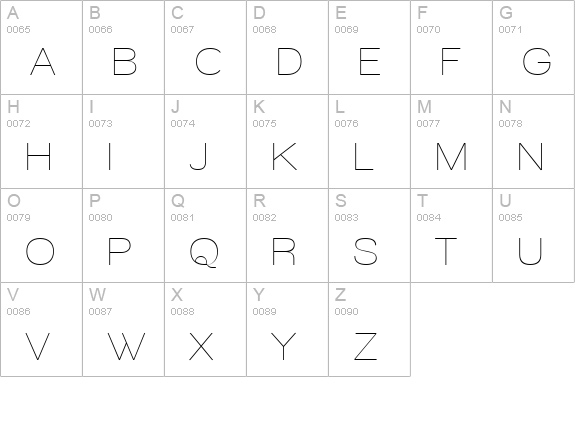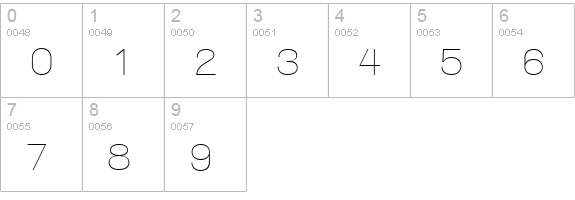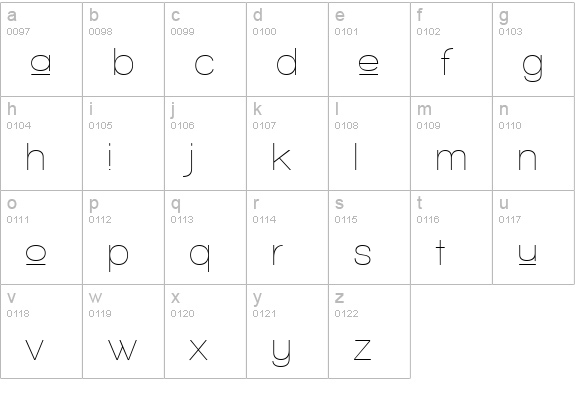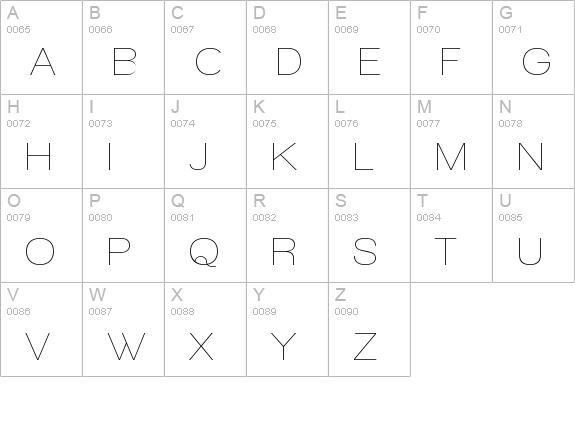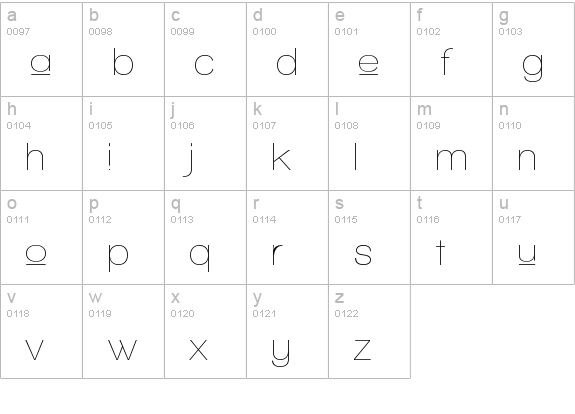
Walkway Upper font is a modern and stylish typeface that exudes elegance and sophistication. Its clean lines and contemporary design make it ideal for a wide range of design projects, from branding to editorial. This versatile font is perfect for headlines, logos, posters, and more, adding a touch of class to any text. Best of all, Walkway Upper font is available for free download at FontsMarket.com. This means you can easily access this sleek and professional font without any cost, making it a valuable addition to your font library. Don't miss out on the opportunity to enhance your designs with the timeless beauty of Walkway Upper font – download it for free today!